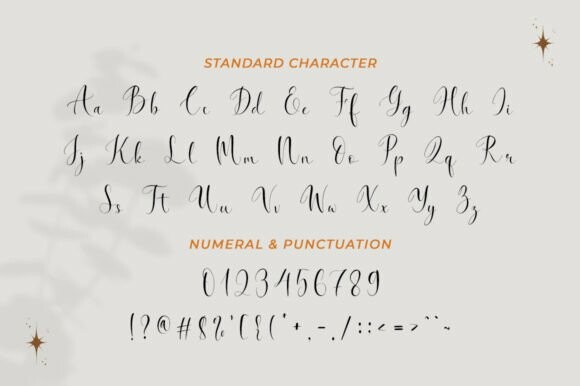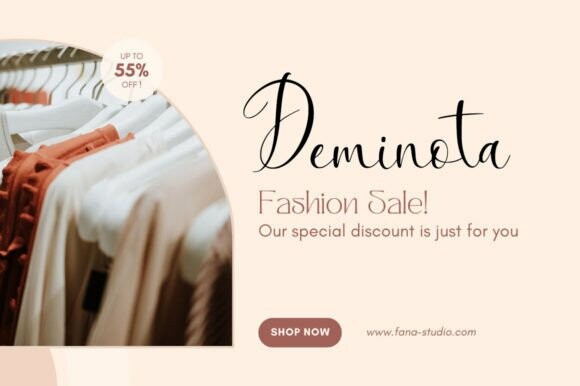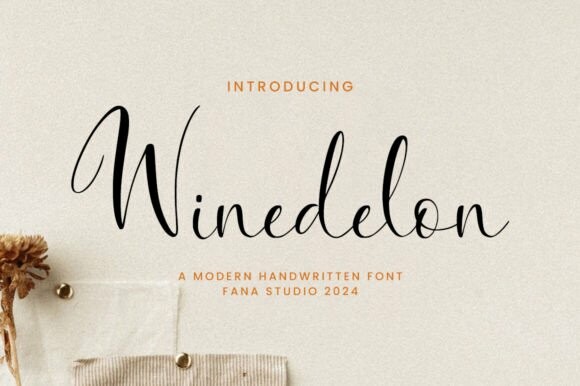
Winedelon Font
Designer: fanastudio
Winedelon Font, a stylish Font Style. This beautiful script font offers your personal touch to your latest art project with an elegant, classy, and modern look.
The Winedelon Script offers gorgeous typography perfect for many different projects such as logos & branding, invitations, stationery, wedding designs, social media posts, advertisements, product packaging, product designs, labels, photography, watermarks, special events, or anything that needs handwriting taste.